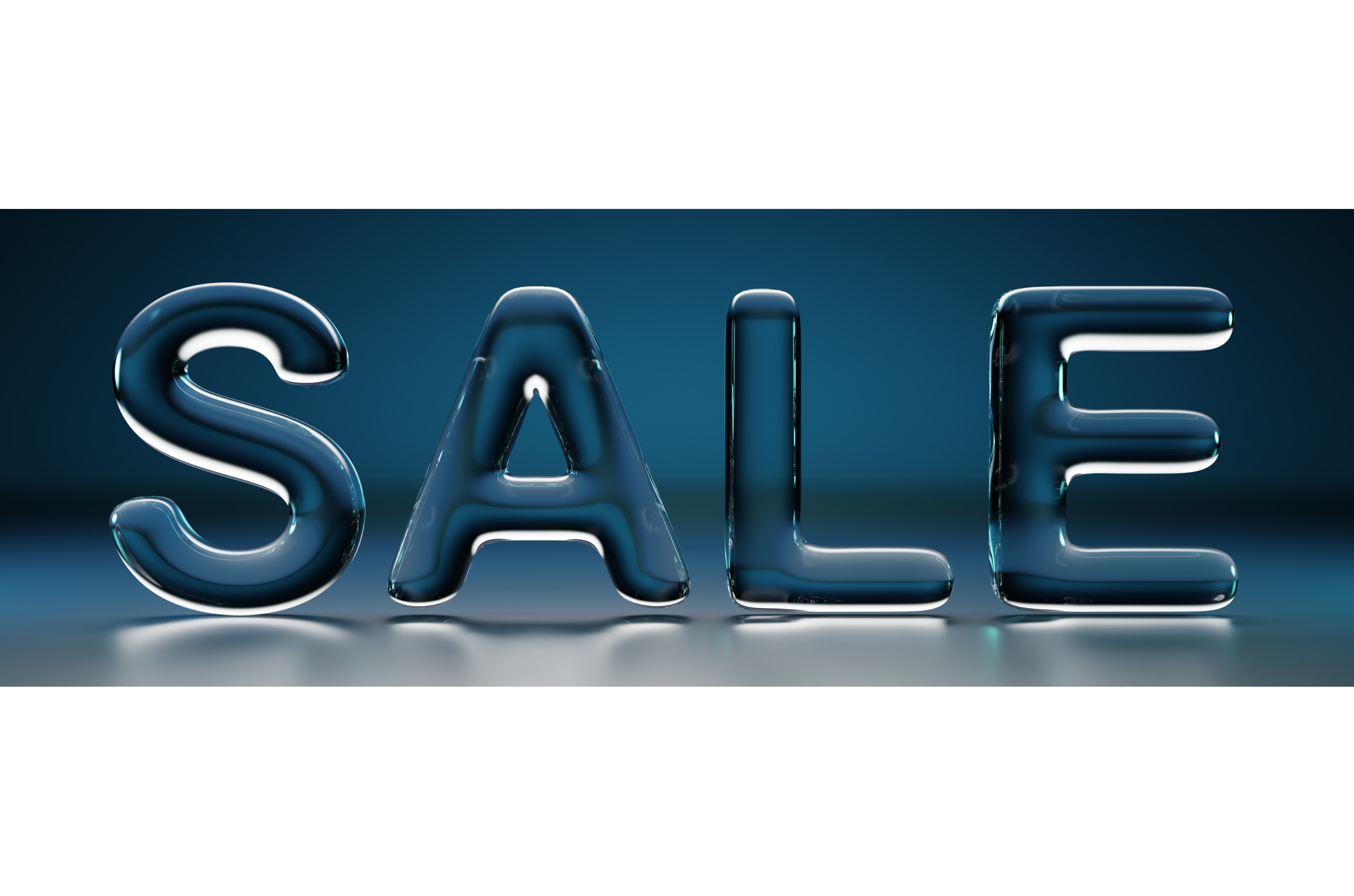
Water font, liquid SALE letters on
Water font, liquid SALE letters on dark blue 3d background. Glass holographic transparent text with light reflection on floor for black friday discount, retail marketing special offer. 3D illustration